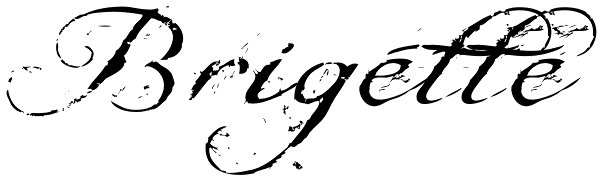
Brigette
This frilly script has been acid dipped, scratched and destroyed for use in grungy design jobs or any other use that calls for a ragged script. Three different degrees of deconstruction are available. The Alternate Two variant is highly distressed...
Brigette
Brigette Alternate Two
Brigette Alternate One